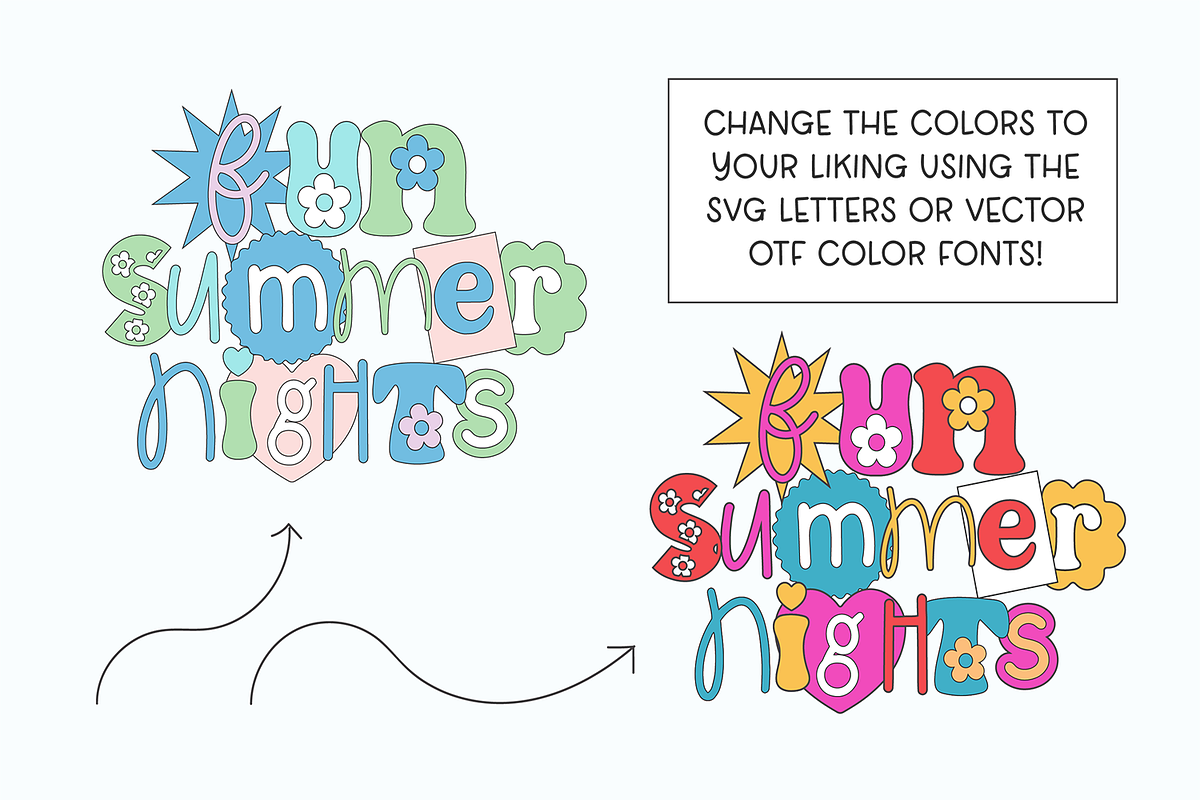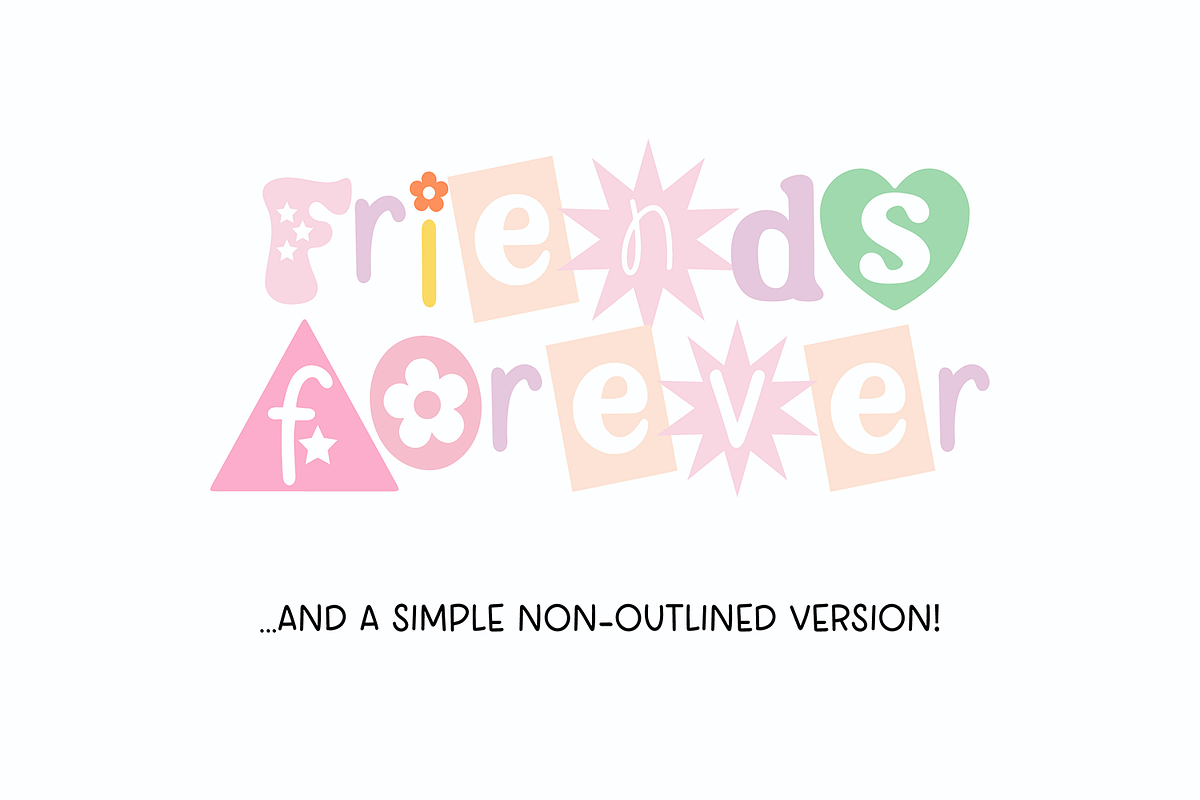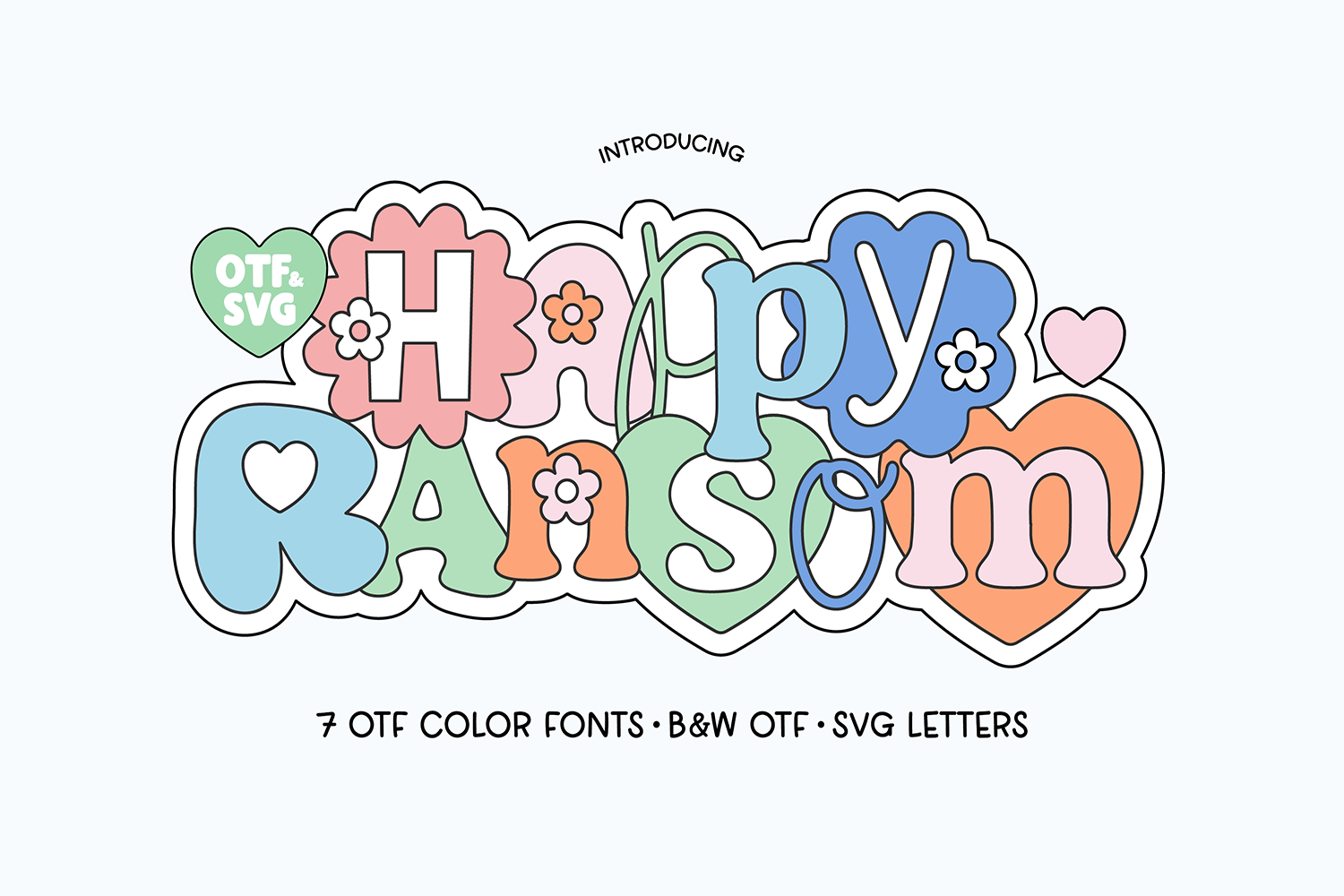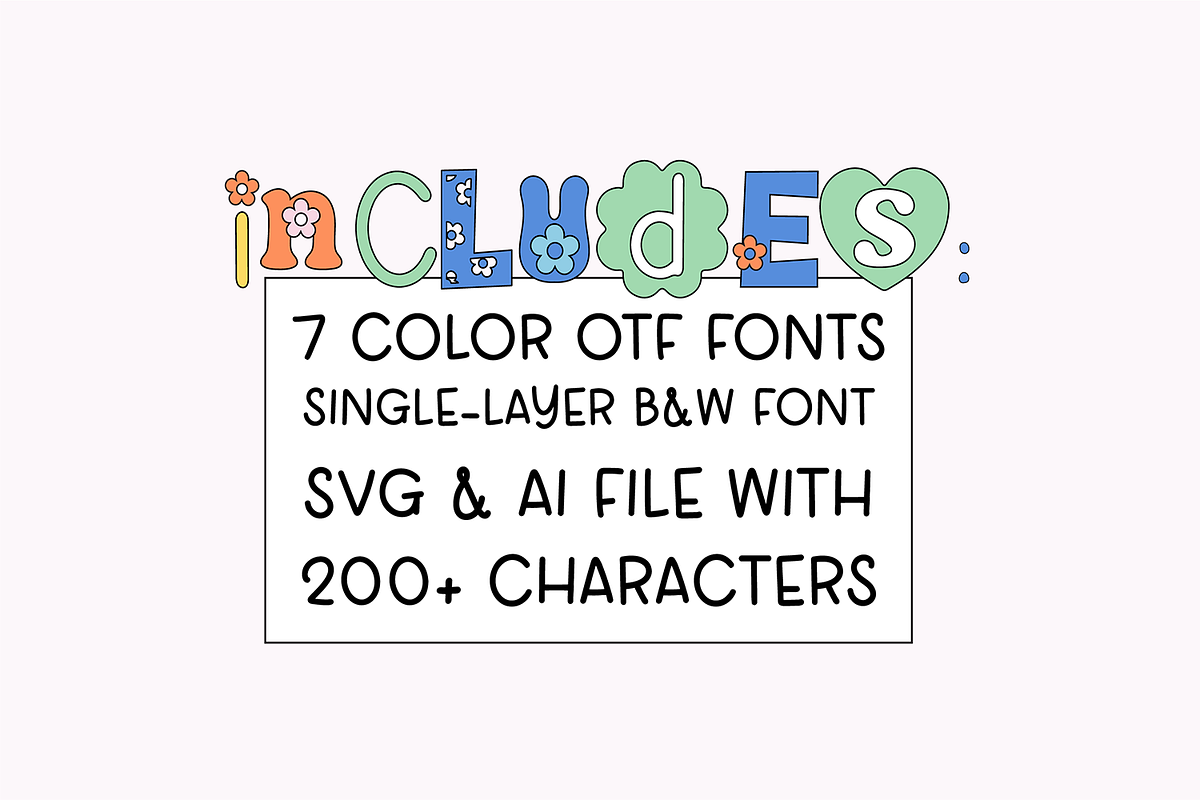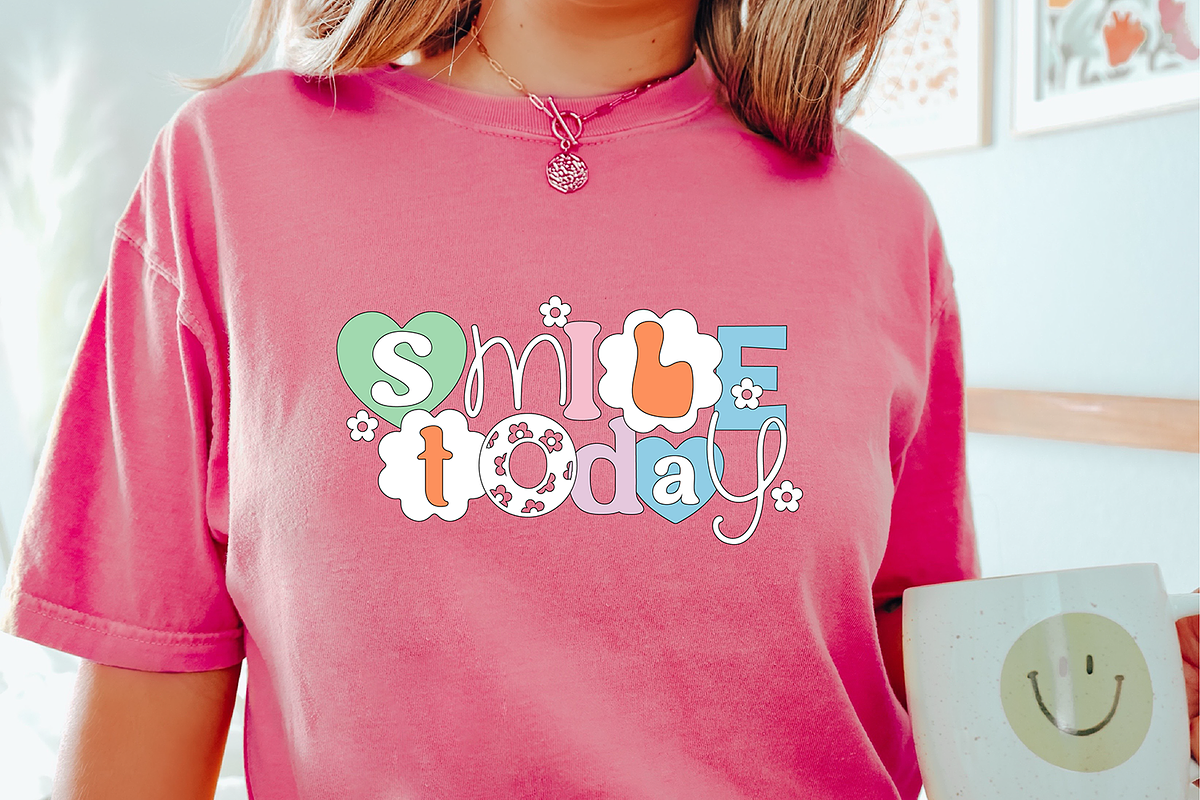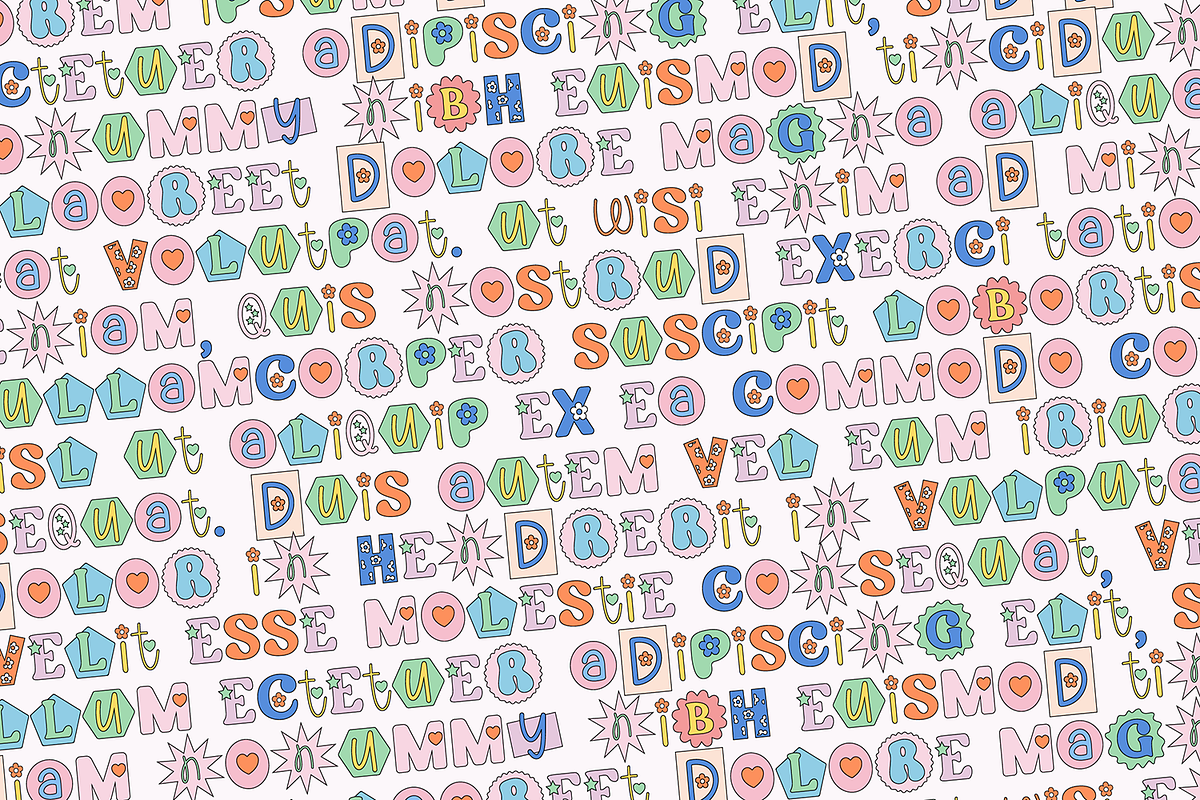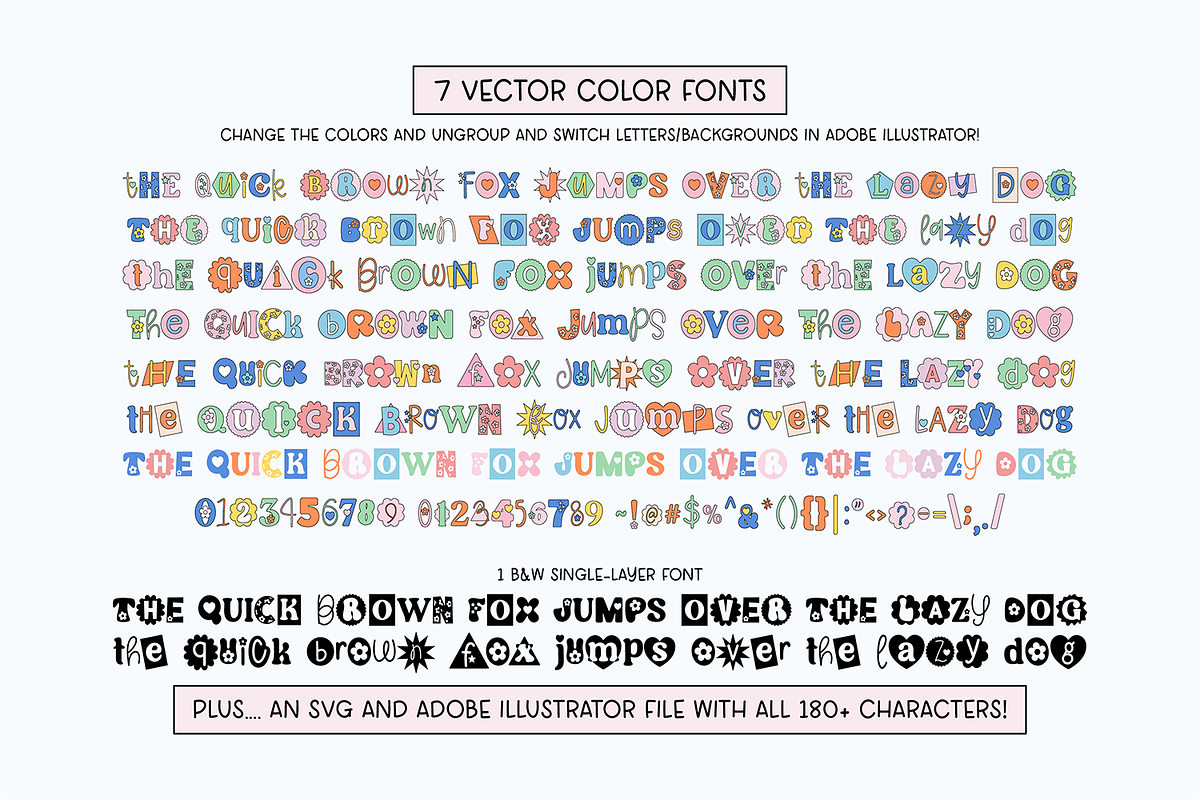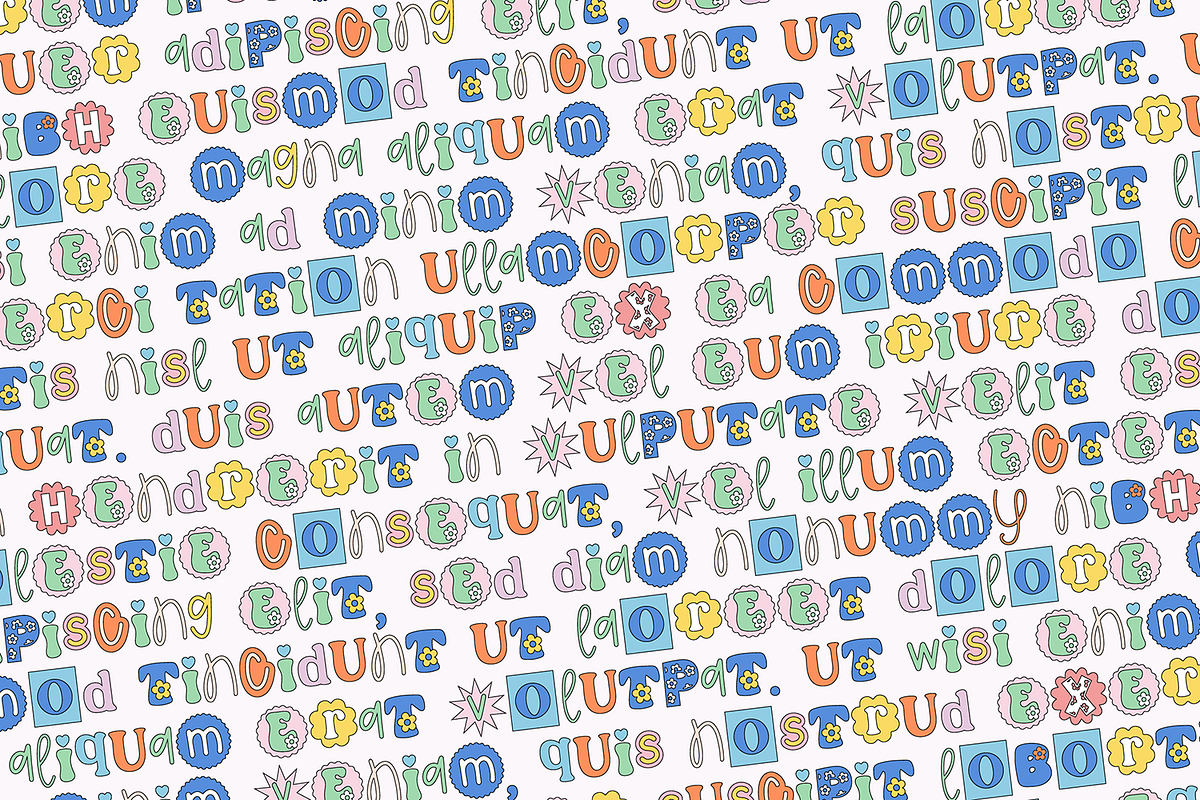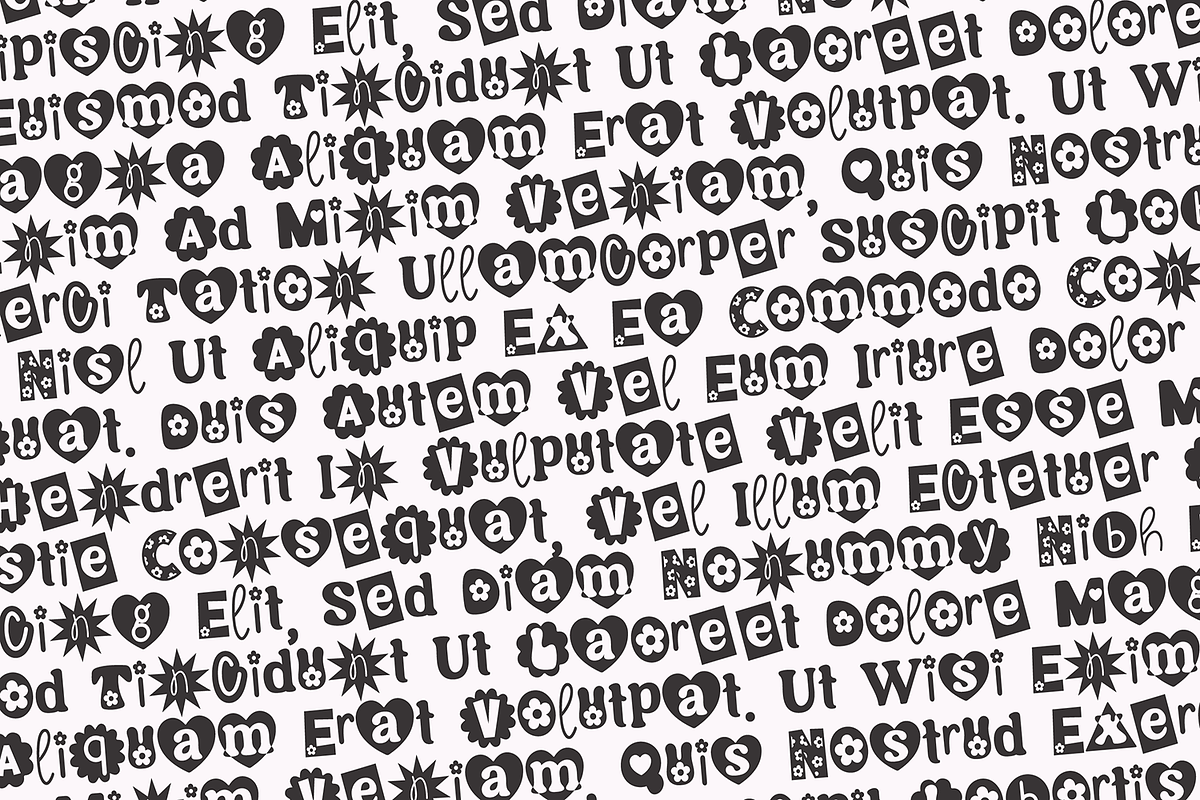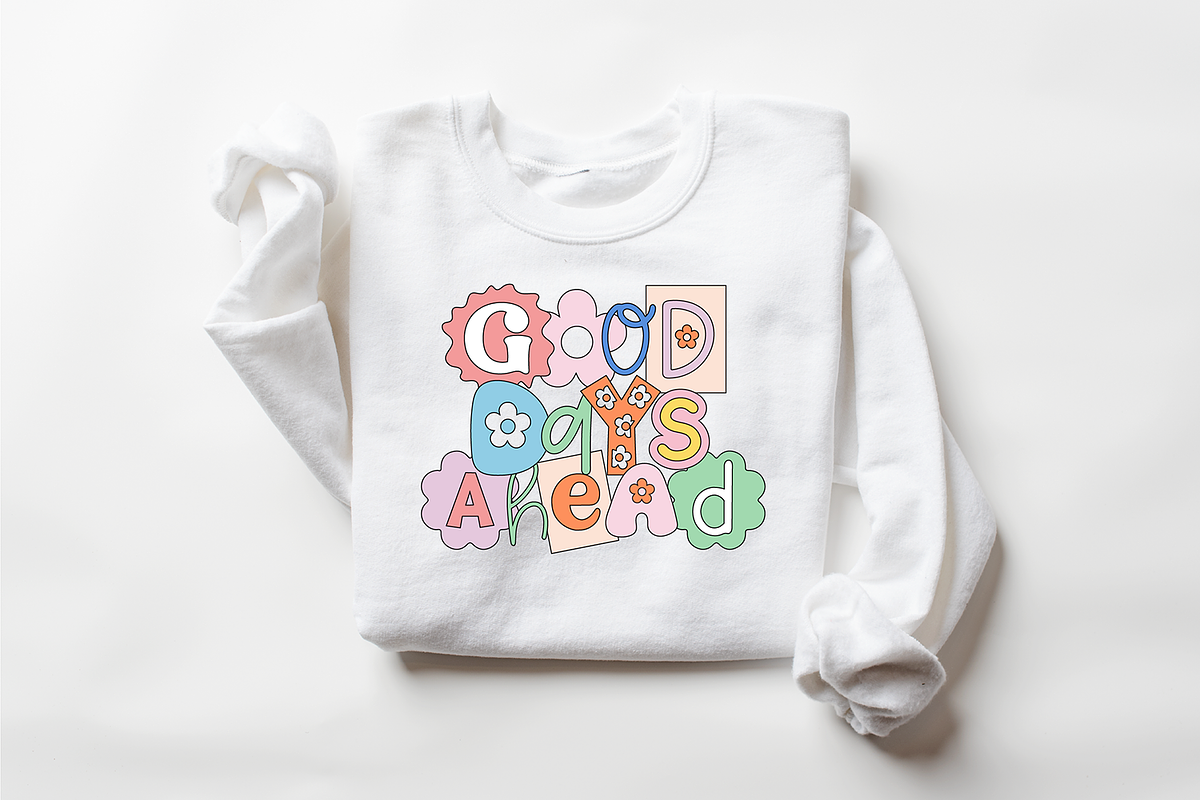
HAPPY RANSOM Boho Floral Cutout Font
HAPPY RANSOM BOHO FLOWER CUT-OUT FONT FAMILY
This font family includes 7 .OTF VECTOR Color Fonts, 1 B&W single-layer font, and an SVG and Illustrator file with over 200 characters. This family also includes punctuation and numbers.